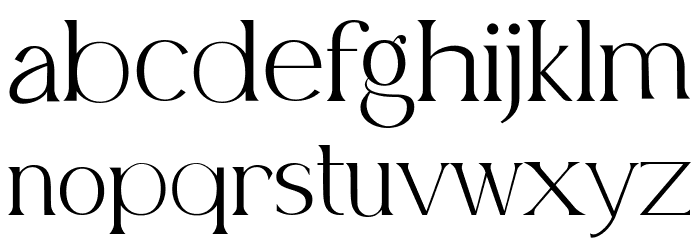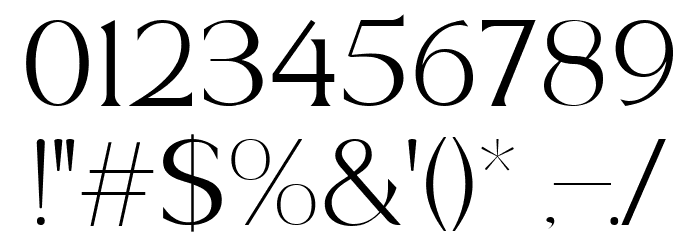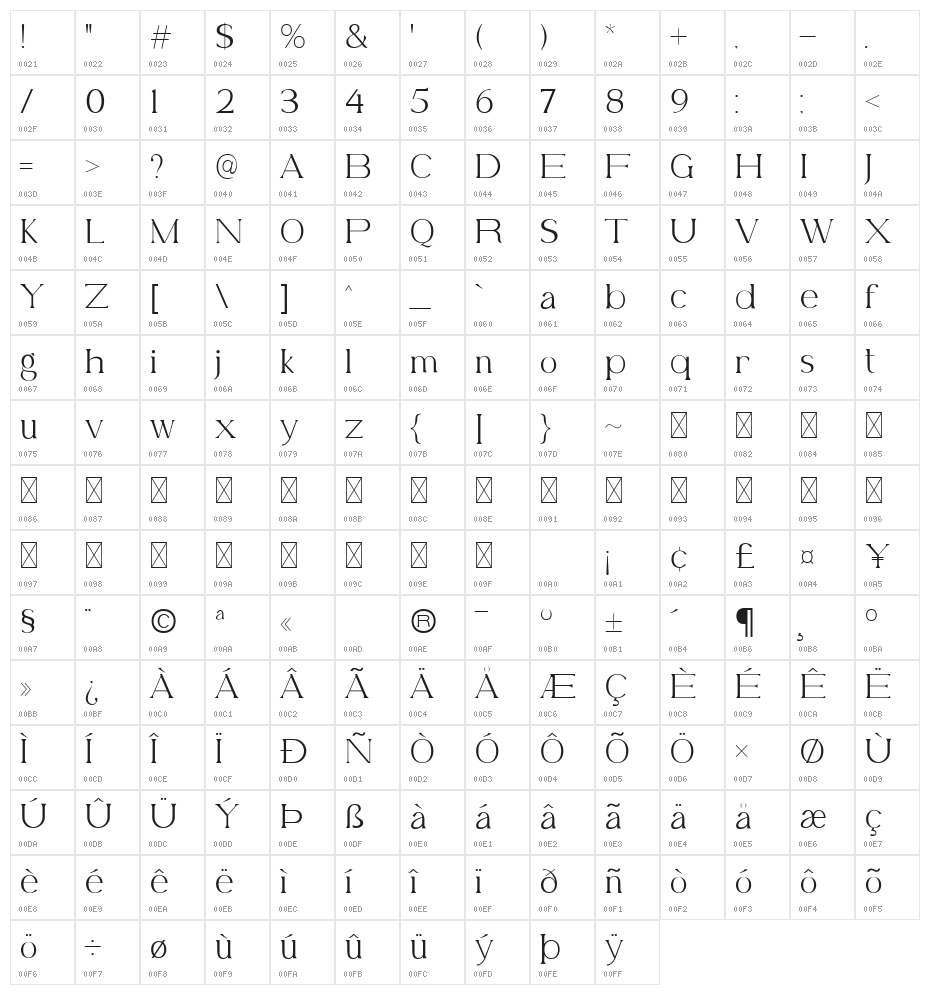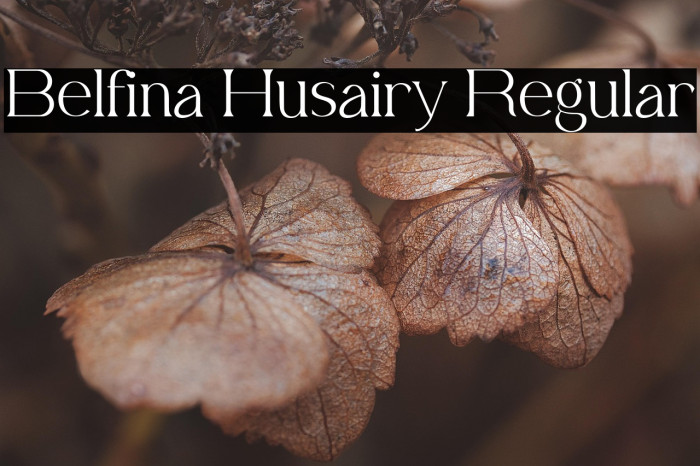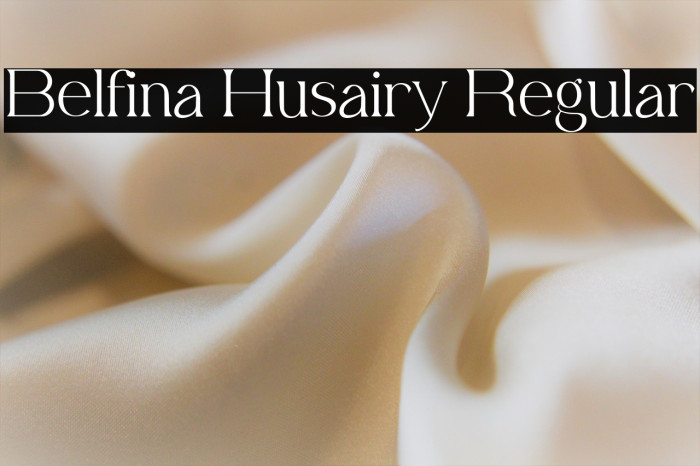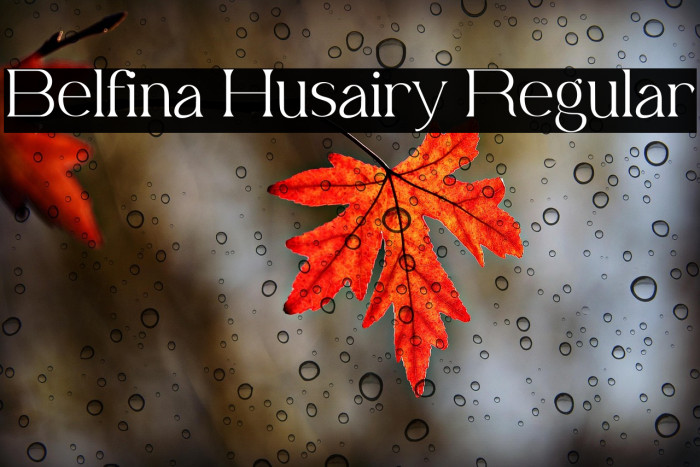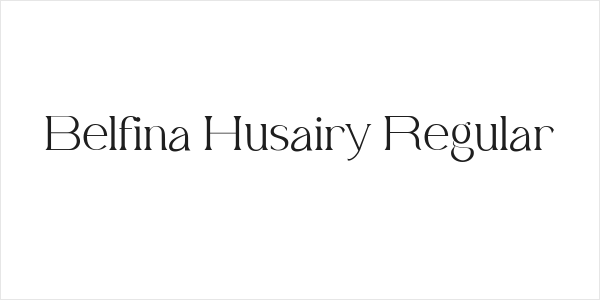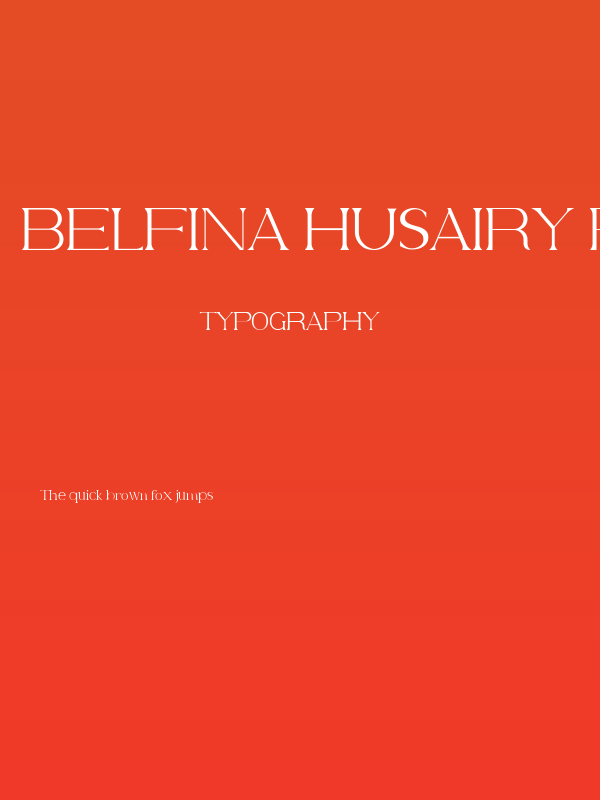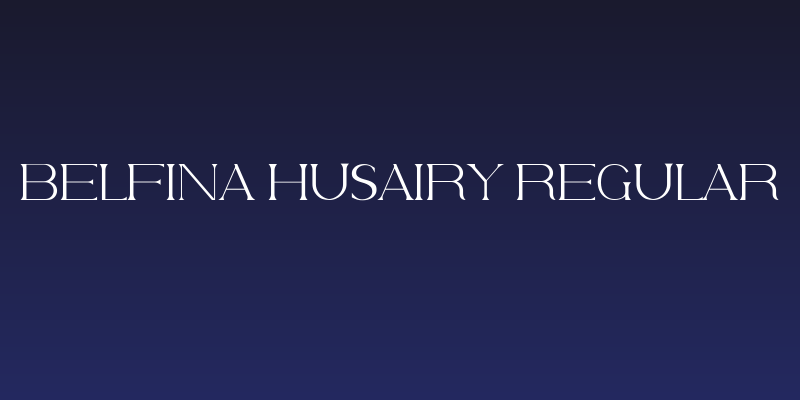
Belfina Husairy Regular Font
This font features a sophisticated and elegant design, characterized by its thin, elongated serifs and high contrast between thick and thin strokes. The uppercase letters exhibit a refined and classic style, while the lowercase letters maintain a smooth and flowing appearance. The numerals are distinct and clear, making them easily readable. Special characters are designed with the same attention to detail, ensuring consistency across all glyphs. This font's overall aesthetic is both modern and timeless, making it versatile for various design applications.
A sophisticated serif font with high contrast and elegant serifs.
- Proposed Projects: Ideal for luxury branding, editorial design, wedding invitations, and high-end product packaging.